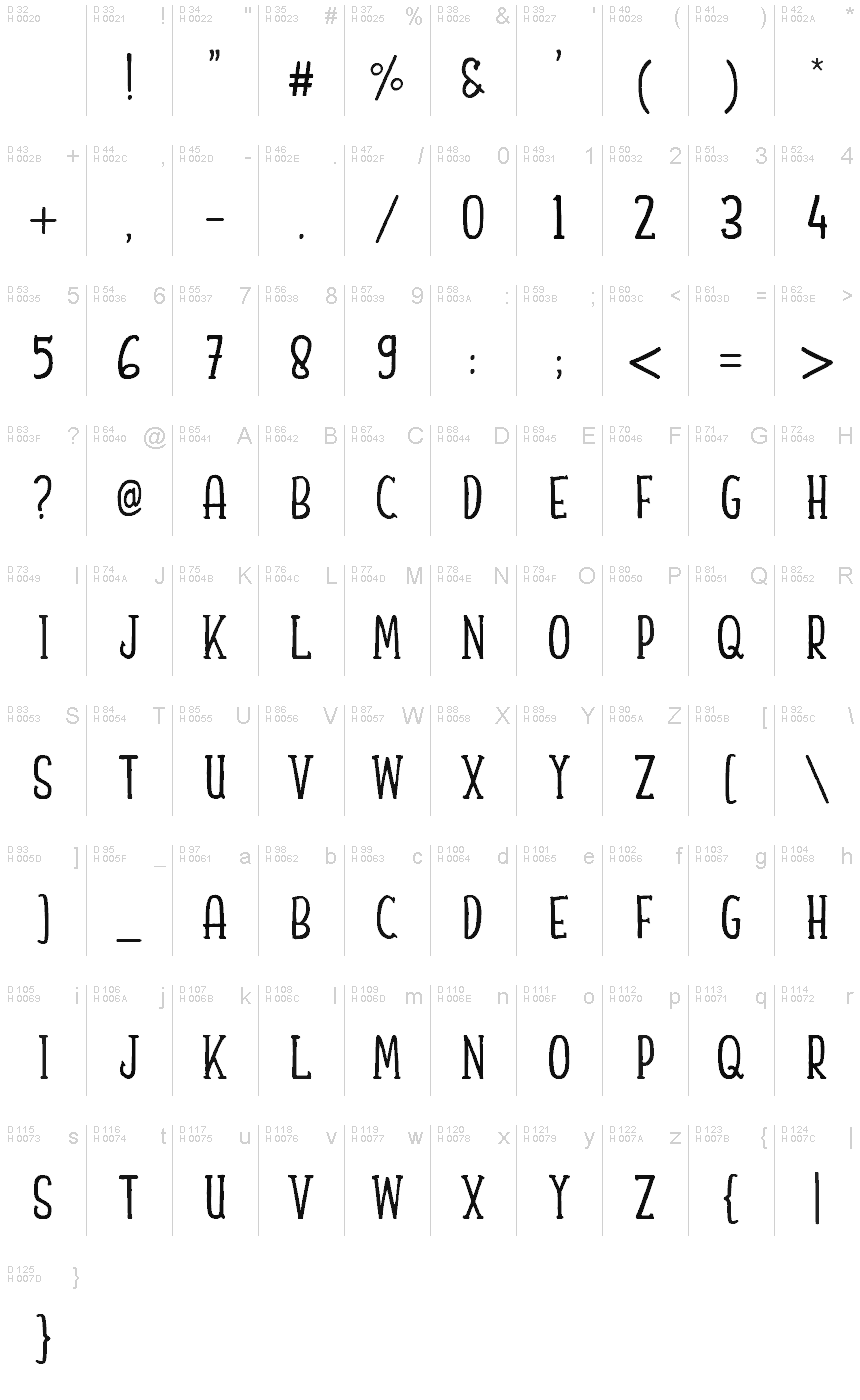
Shafeer Descript Demo
Introducing Shafeer the shine script Font Duo.
Shafeer was built with OpenType features. It has an alternate upper and lowercase character set, Swashes, titling alternate, numbers, punctuation, ligatures and it also supports multilingual.
It can be used for branding, photography, invitations, watermarks, advertisements, product designs, labels, product packaging, and much more!